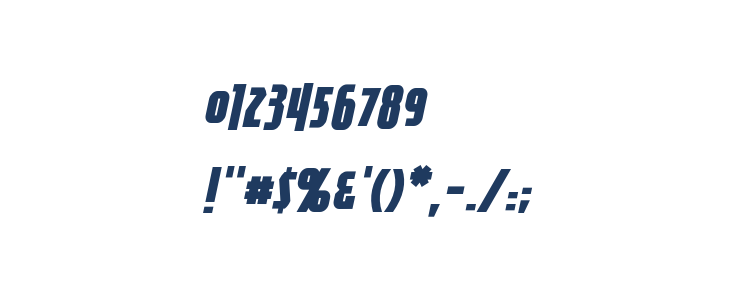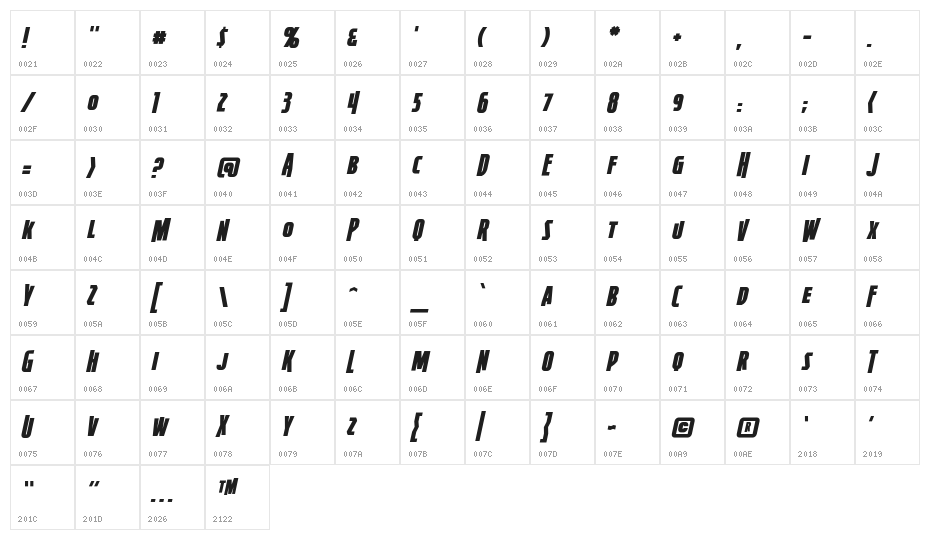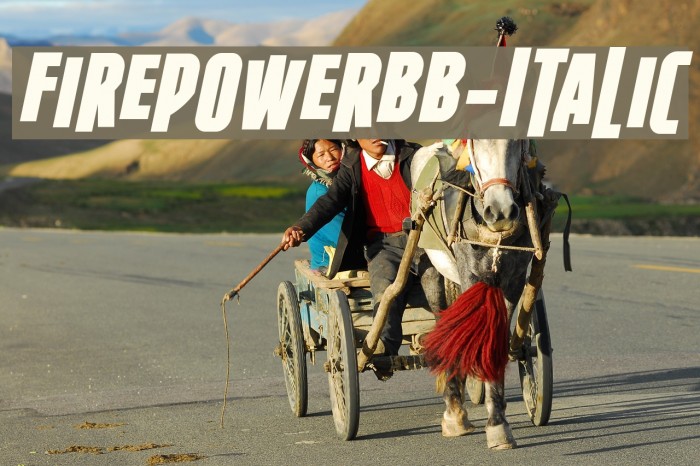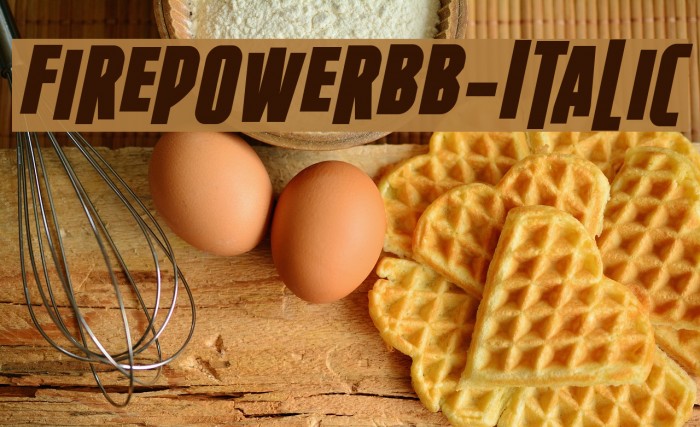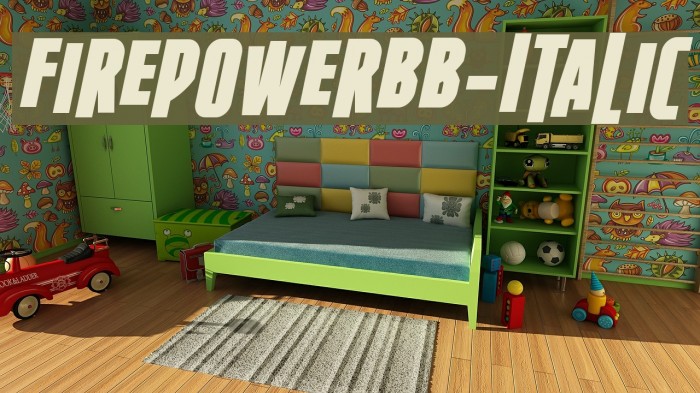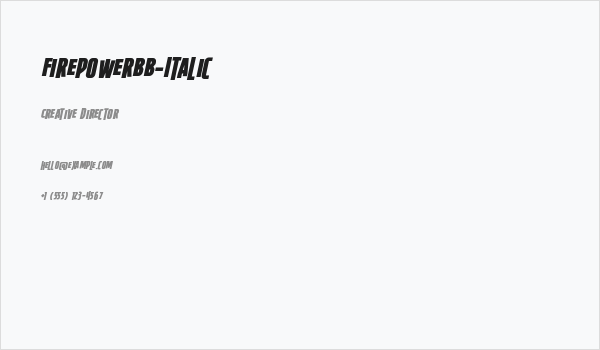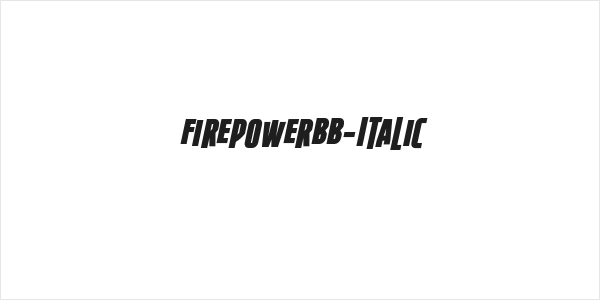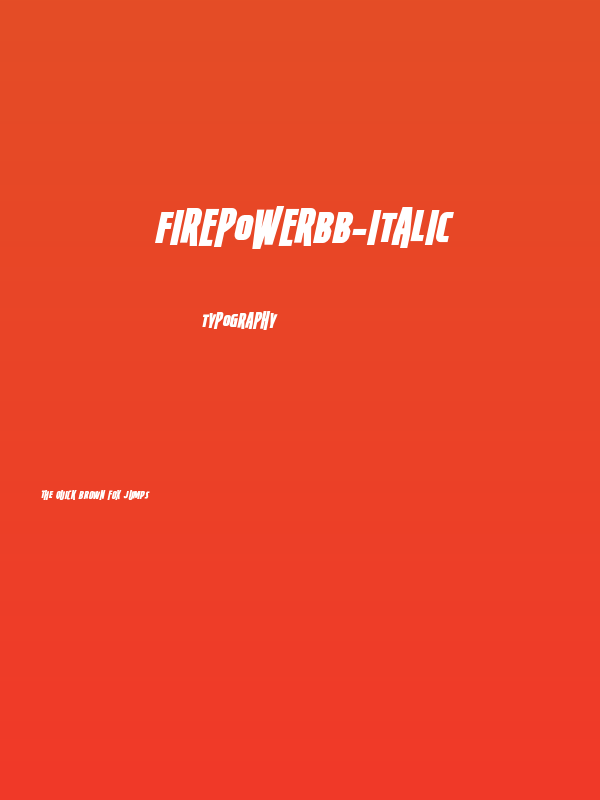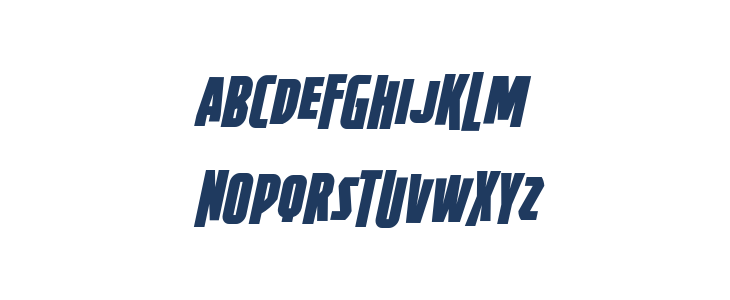
FirepowerBB-Italic Font
FirepowerBB-Italic Description
This font exudes a dynamic and energetic style, characterized by its bold and italicized letterforms. The letters are sharply angled, giving a sense of motion and speed. The uppercase and lowercase characters maintain a consistent slant, enhancing the italic effect. The numbers and special characters follow the same stylistic approach, ensuring uniformity across all glyphs. The font's design is modern and impactful, making it suitable for attention-grabbing headlines and titles.
| Proposed Projects | Ideal for sports branding, action movie posters, video game titles, and dynamic advertising campaigns. |